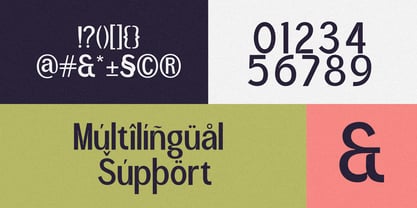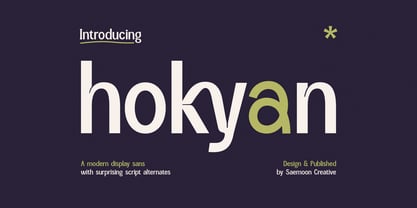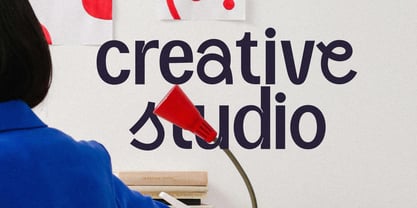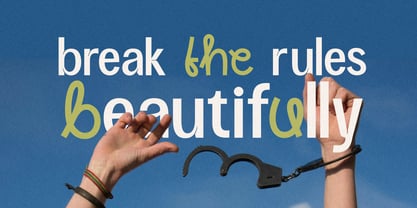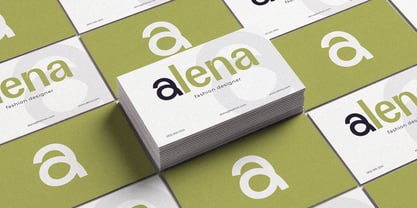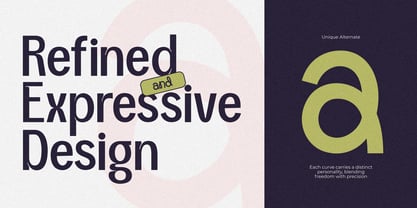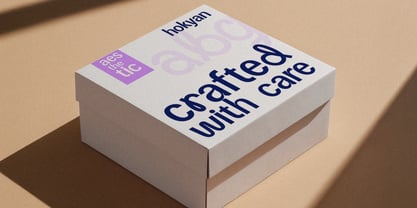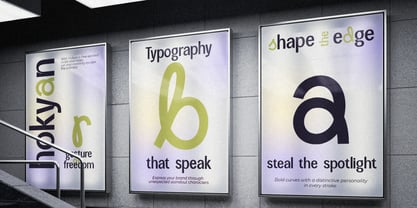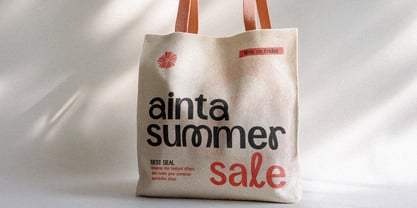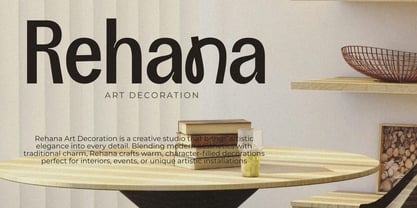
Hokyan
by Saemoon Creative
The Hokyan Font Family was designed by Sapto Susilo and published by Saemoon Creative. Hokyan contains 2 styles and family package options.
Hokyan is a modern display sans with a twist of playful elegance. This typeface blends clean geometric construction with expressive script-style alternates that bring unexpected character to your designs. From branding to editorial, Hokyan makes a strong impression while offering flexibility through its stylistic letterforms and alternate glyphs.
Designed with attention to balance and rhythm, Hokyan supports multilingual characters and is perfect for logos, headlines, posters, and packaging where you want a contemporary yet unique voice. Let its smooth curves and confident structure elevate your visual identity.